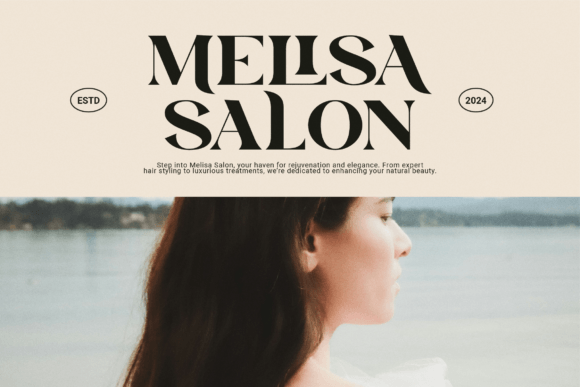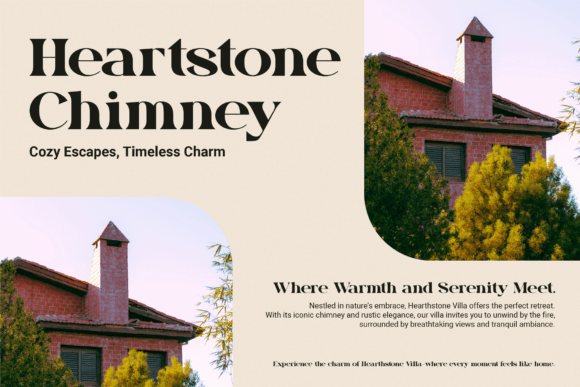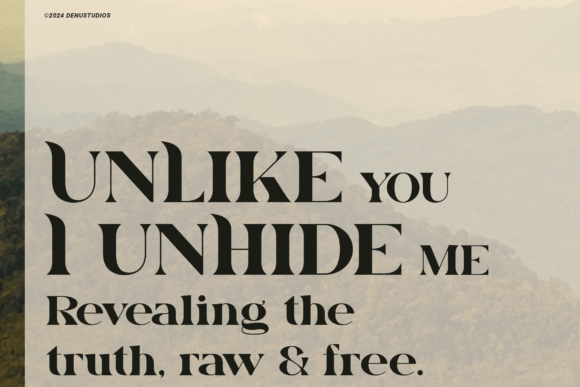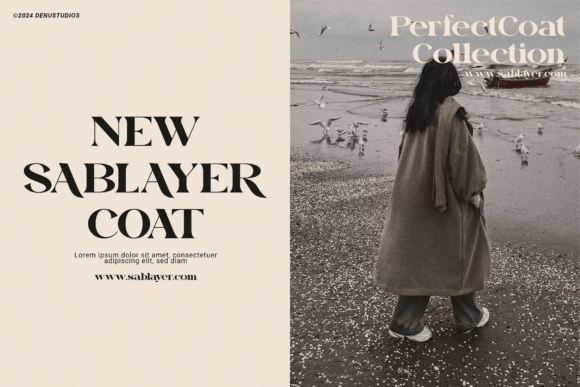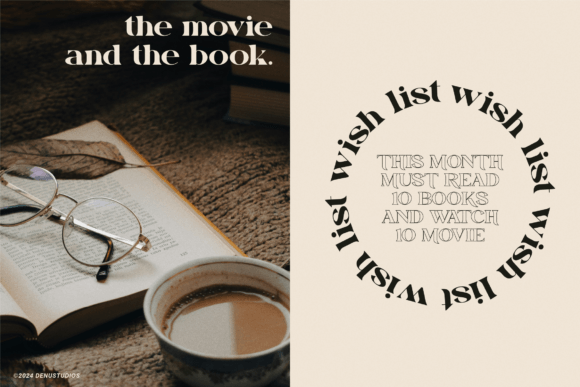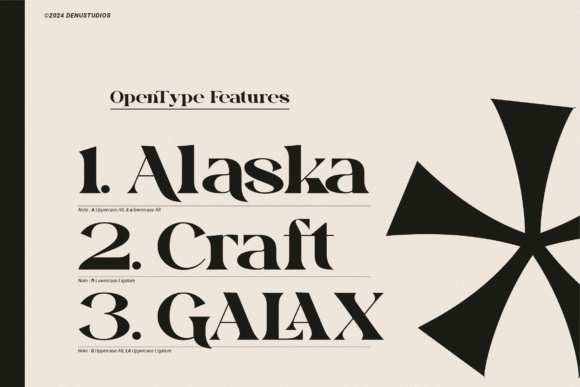
Introducing Gradzy Font: Elevate Your Designs with Elegance and Sophistication
In the world of typography, a font can make or break a design. For designers and crafters looking to create high-end branding, editorial designs, fashion headlines, logos, and sophisticated packaging, Gradzy Font is the perfect solution. This sleek and modern display serif font is designed to make an impact, boasting bold contrasts, elegant curves, and a stylish flair that exudes luxury and refinement.
A Perfect Balance of Tradition and Innovation
Gradzy Font strikes the perfect balance between classic serif tradition and contemporary innovation. Its expertly crafted design combines the timeless elegance of traditional serif fonts with the boldness and creativity of modern typography. The result is a typeface that is both sophisticated and attention-grabbing, perfect for designers looking to elevate their designs with confidence and creativity.
Endless Customization Options
One of the standout features of Gradzy Font is its extensive range of customization options. With expertly crafted ligatures, alternates, and multilingual support, designers have endless possibilities to create unique and bespoke designs. Whether you’re looking to create a bold and statement-making headline or a elegant and refined body text, Gradzy Font provides the flexibility and versatility to achieve your design goals.
Perfect for High-End Designs
Gradzy Font is specifically designed for high-end designs, making it perfect for a range of applications, including:
- Branding: Create a lasting impression with Gradzy Font’s bold and elegant design, perfect for logos, business cards, and brand guidelines.
- Editorial Designs: Elevate your editorial designs with Gradzy Font’s sophisticated and refined aesthetic, perfect for magazine covers, articles, and advertisements.
- Fashion Headlines: Make a statement with Gradzy Font’s bold and stylish design, perfect for fashion headlines, titles, and captions.
- Logos: Create a unique and memorable logo with Gradzy Font’s elegant and refined design, perfect for businesses, products, and services.
- Packaging: Add a touch of sophistication and elegance to your packaging designs with Gradzy Font, perfect for luxury brands, products, and services.
Key Features of Gradzy Font
So, what sets Gradzy Font apart from other typefaces? Here are some of its key features:
- Bold Contrasts: Gradzy Font features bold contrasts that add depth and dimension to your designs.
- Elegant Curves: The font’s elegant curves and refined lines create a sophisticated and luxurious aesthetic.
- Stylish Flair: Gradzy Font’s stylish flair adds a touch of creativity and personality to your designs.
- Expertly Crafted Ligatures: The font’s expertly crafted ligatures provide endless customization options.
- Alternates and Multilingual Support: Gradzy Font’s alternates and multilingual support give you the flexibility to create unique and bespoke designs.
In conclusion, Gradzy Font is a game-changer for designers and crafters looking to elevate their designs with elegance and sophistication. Its perfect balance of classic serif tradition and contemporary innovation, combined with its extensive range of customization options, make it the perfect solution for high-end designs. Whether you’re looking to create a bold and statement-making headline or a elegant and refined body text, Gradzy Font is the perfect choice.